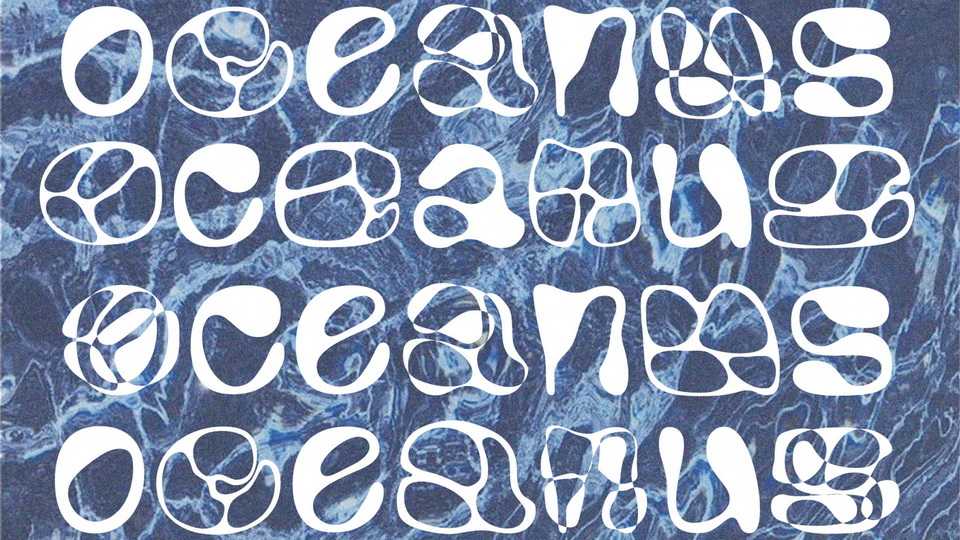
Download Oceanus font, a display typeface inspired by Stanislaw Lem’s novel Solaris. Oceanus font is an attempt to find common language between Ocean and Human, about their communication, illusion, fight with the fear and incomprehensible logic of water.